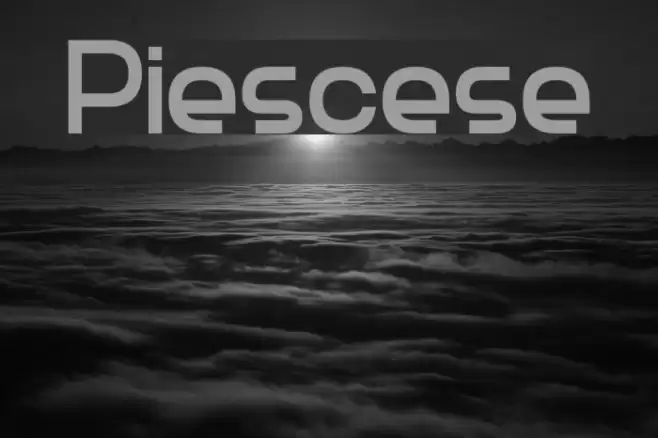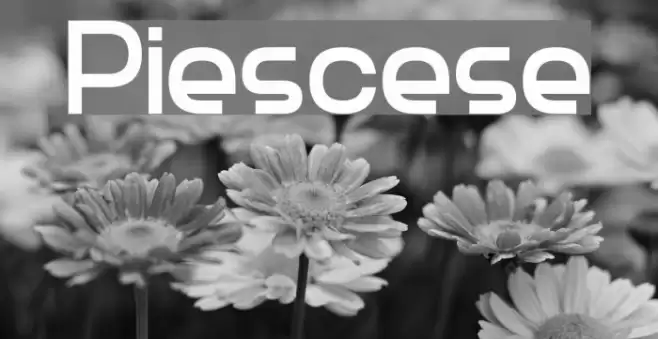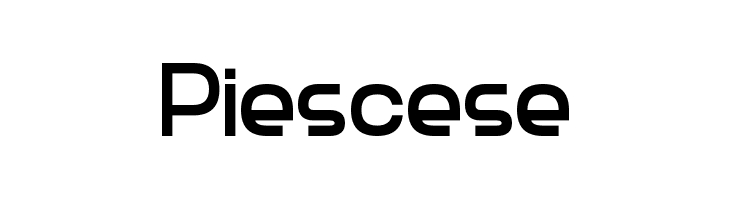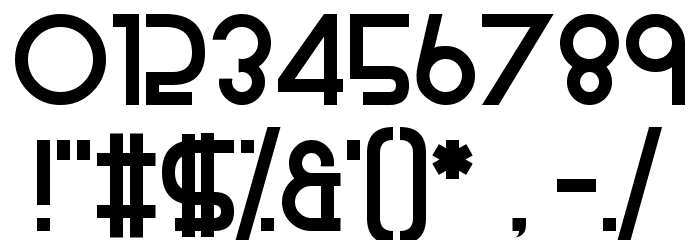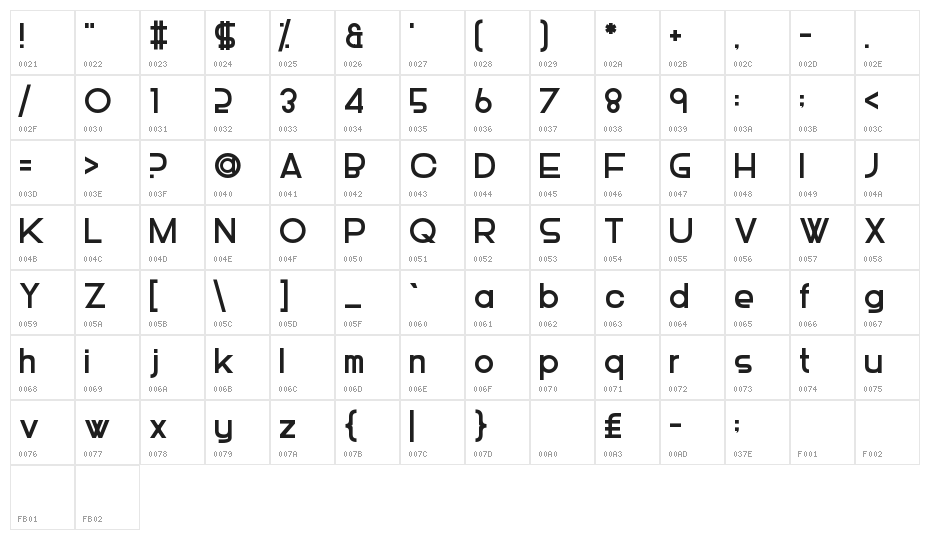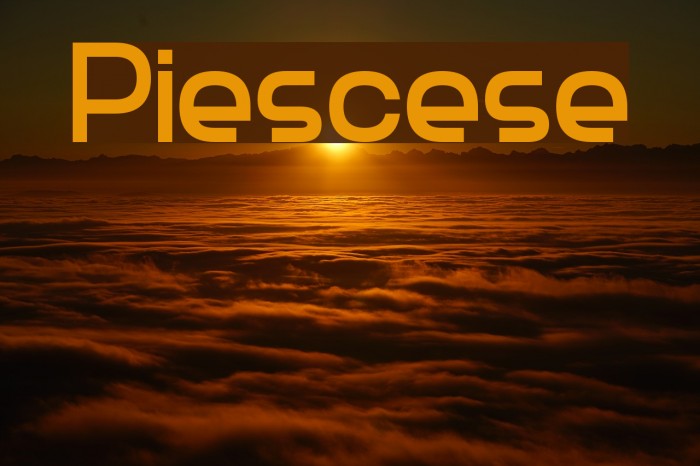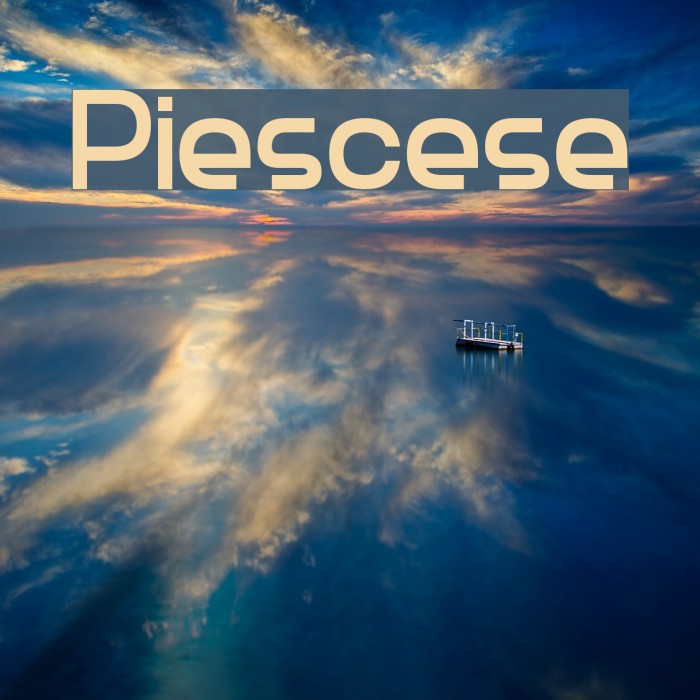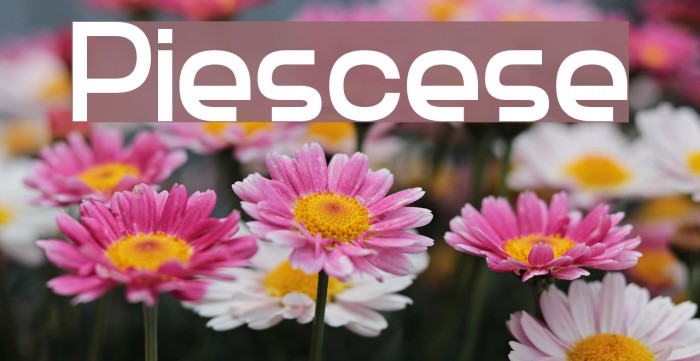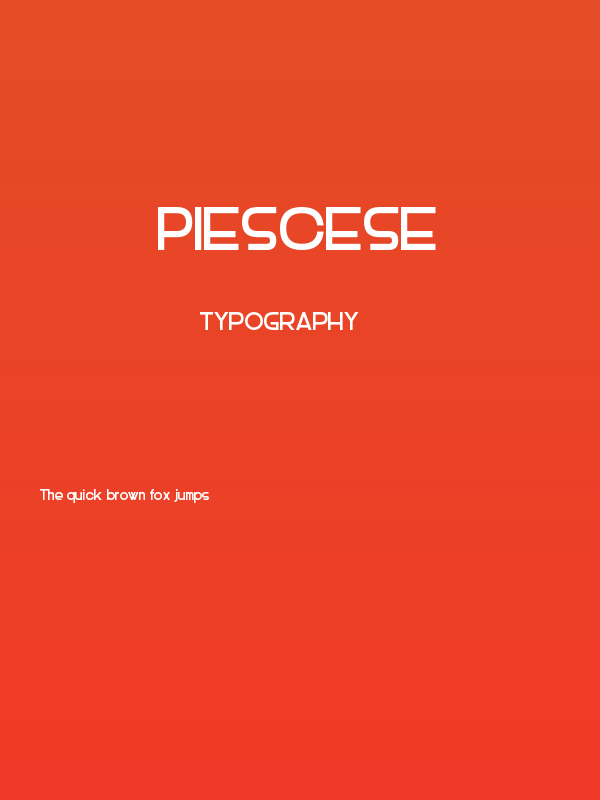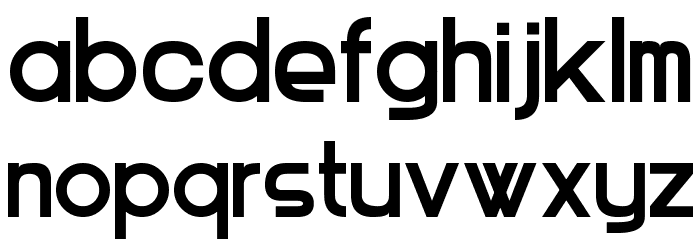
Piescese Font
Piescese Description
This font features a modern and clean sans-serif style with geometric shapes and uniform stroke widths. The uppercase letters are bold and assertive, while the lowercase letters maintain a consistent height and width, offering a balanced appearance. The numerals are clear and easily distinguishable, making them suitable for both digital and print media. Special characters are designed with the same geometric precision, ensuring a cohesive look across all text elements. The overall design is minimalistic yet impactful, making it versatile for various applications.
A modern, geometric sans-serif font with clean lines and uniform strokes from Uncategorized fonts.
- Proposed Projects: Ideal for branding, digital interfaces, advertising, and editorial design.
- Use Case: Headlines, Logos, Digital Interfaces